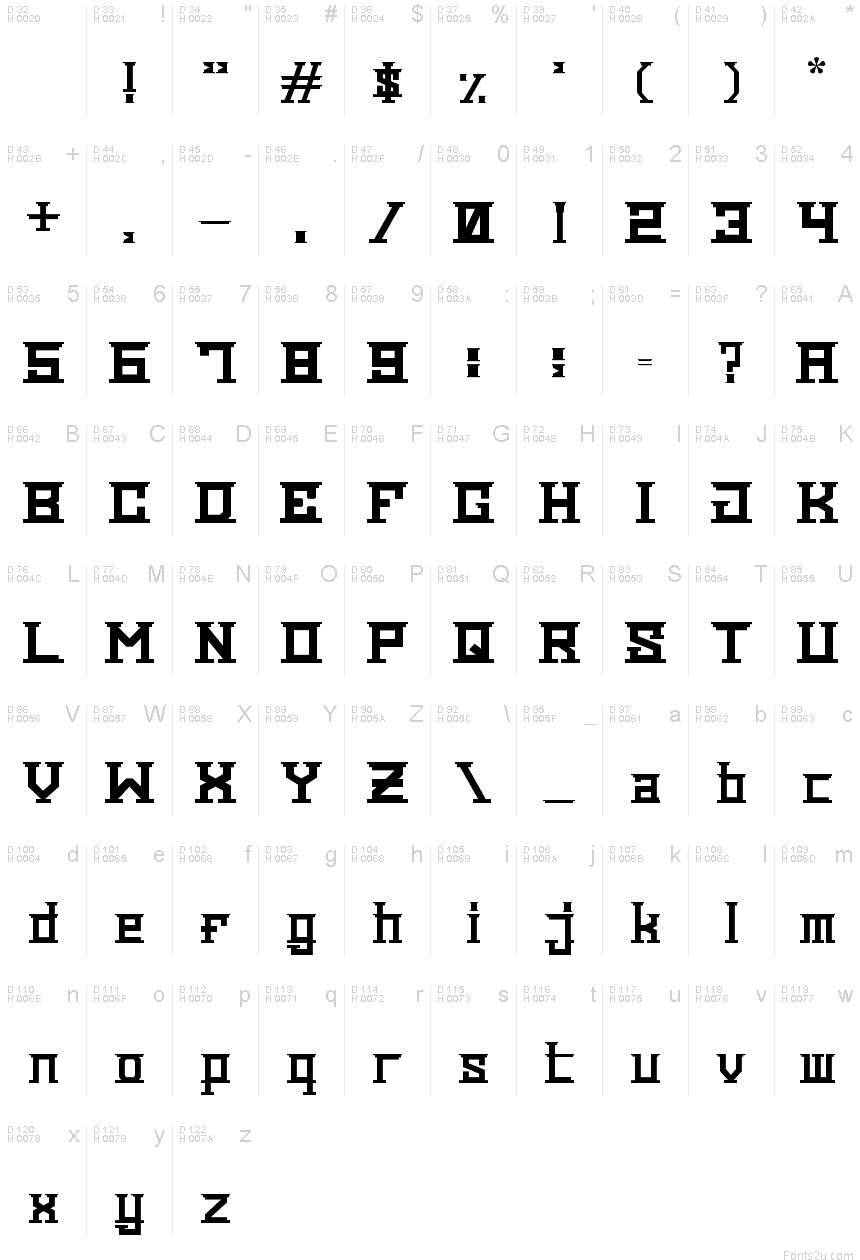
Reichi Goes to Greece by High-Logic.com is a free Greek-inspired display font with a forceful geometric build. Its broad slab-like strokes are cut by square notches and sharp internal angles, with exaggerated crossbars extending beyond several letters. The uneven proportions give the lettering a carved signboard quality.
A restaurant identity is its strongest setting, where the forms can suggest Greek architectural ornament without copying a classical inscription. It also suits festival posters, food packaging, and travel merchandise that need a Mediterranean reference. For tavern signage, the extended bars and squared cuts make the lettering part of the decorative motif.